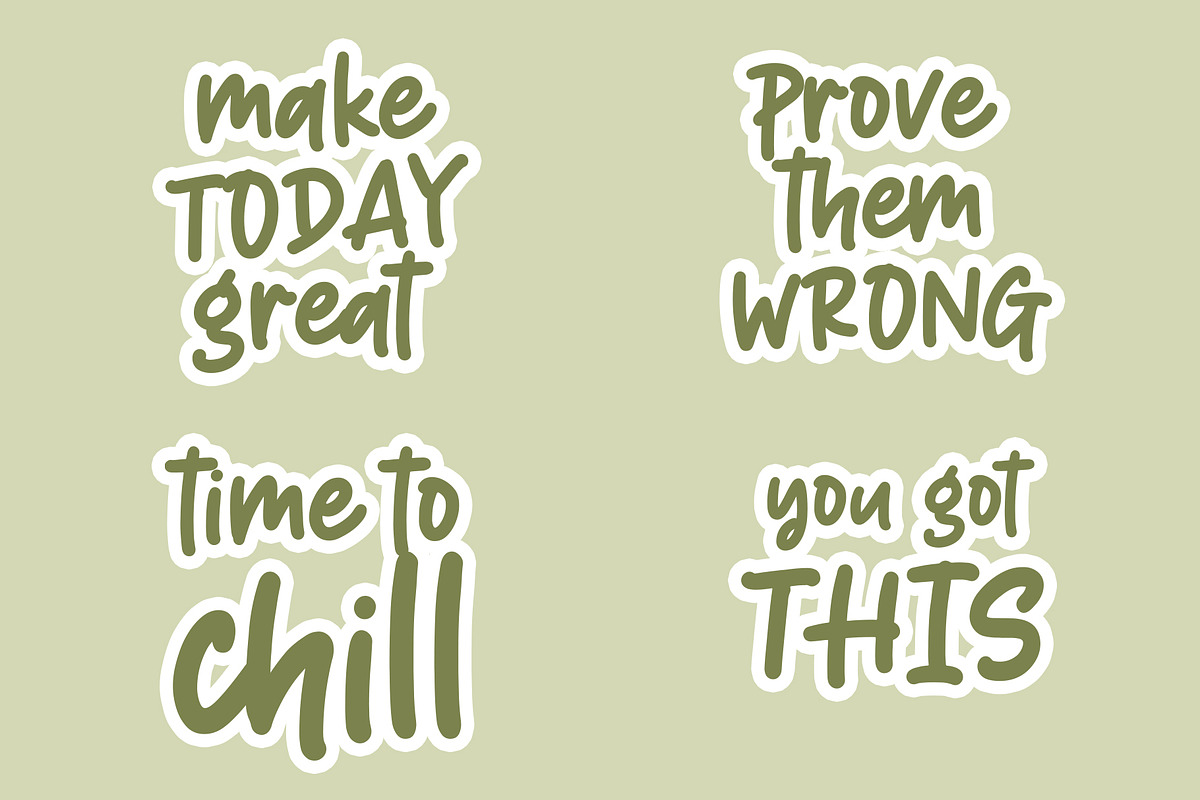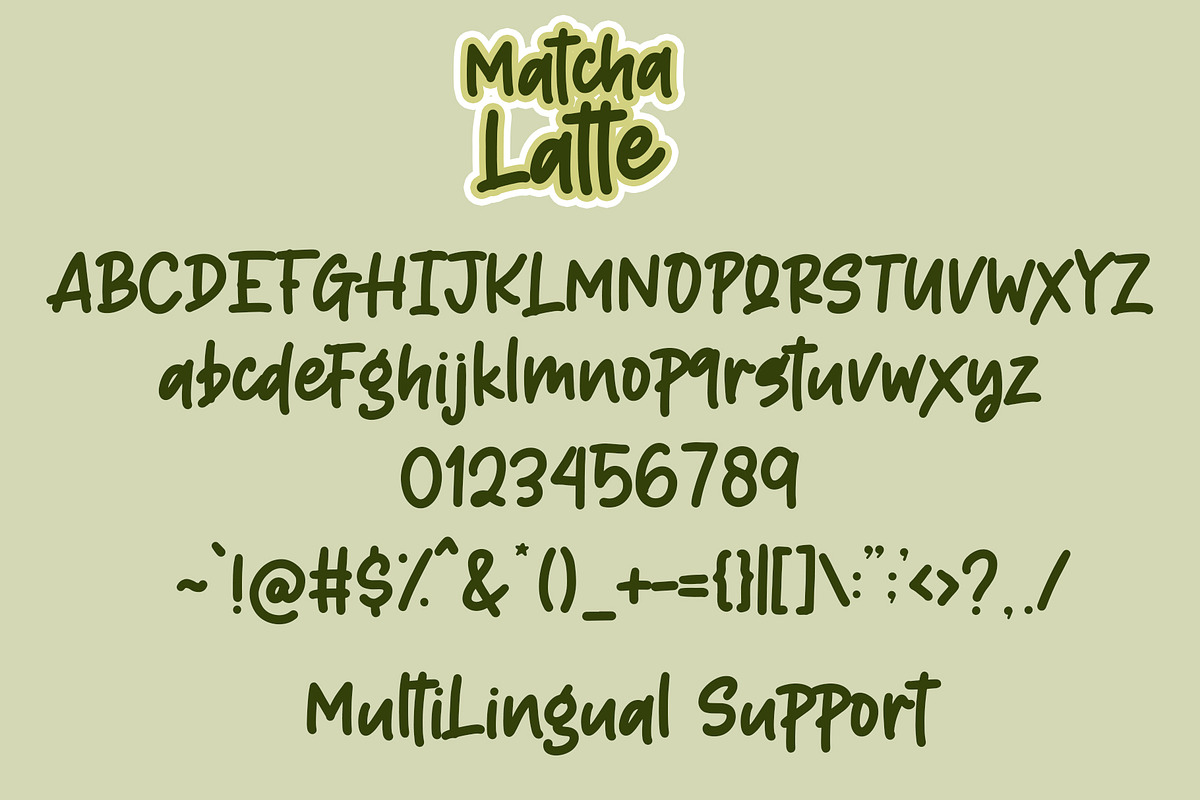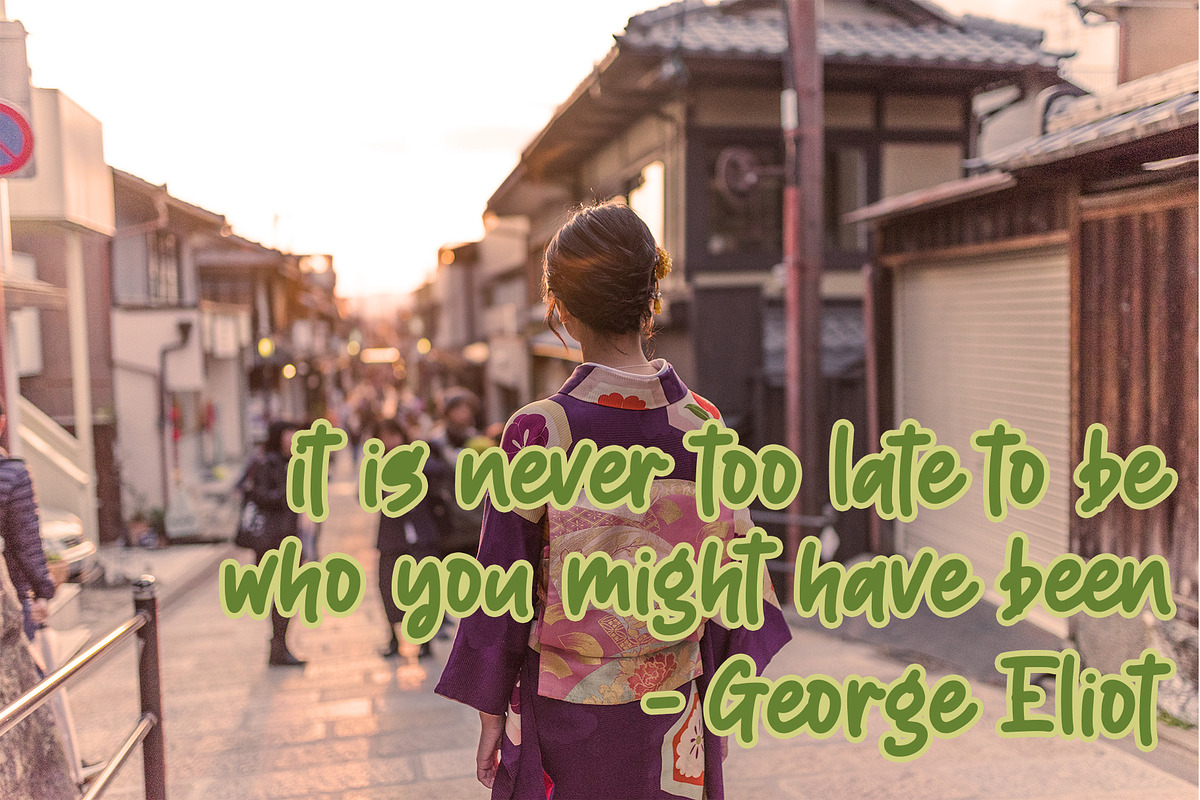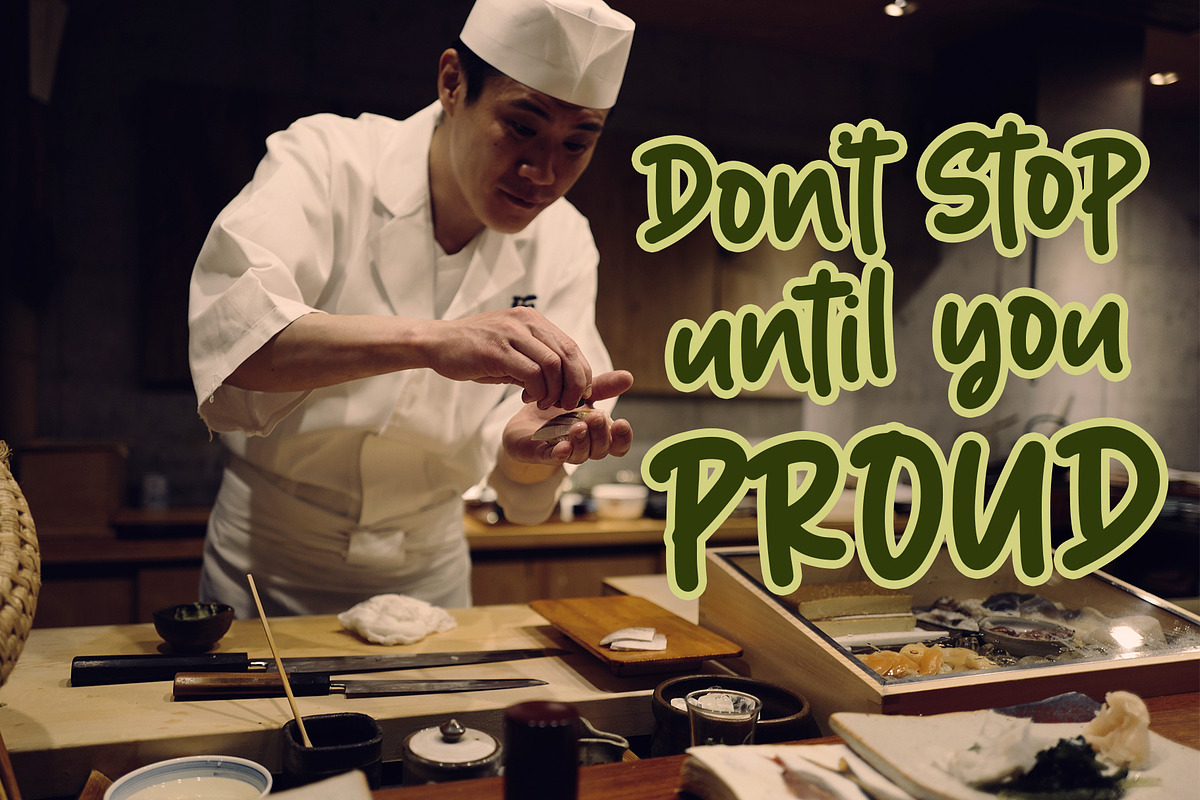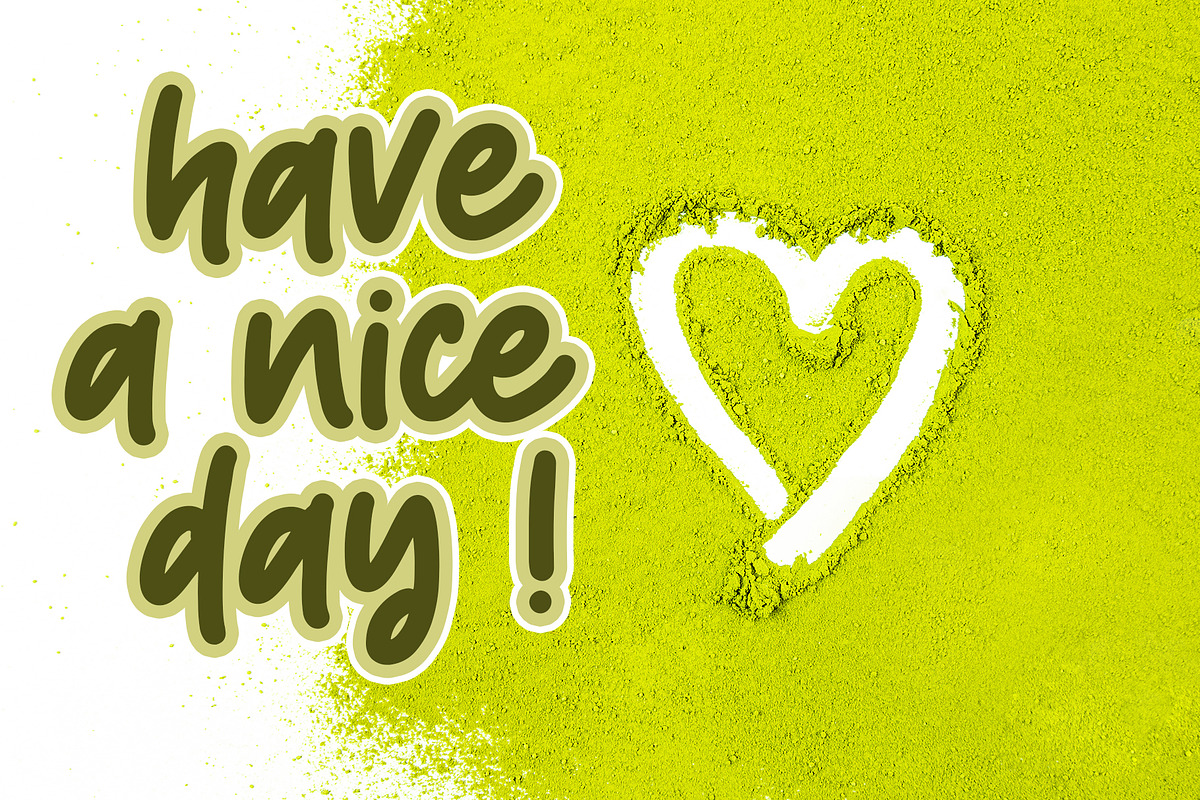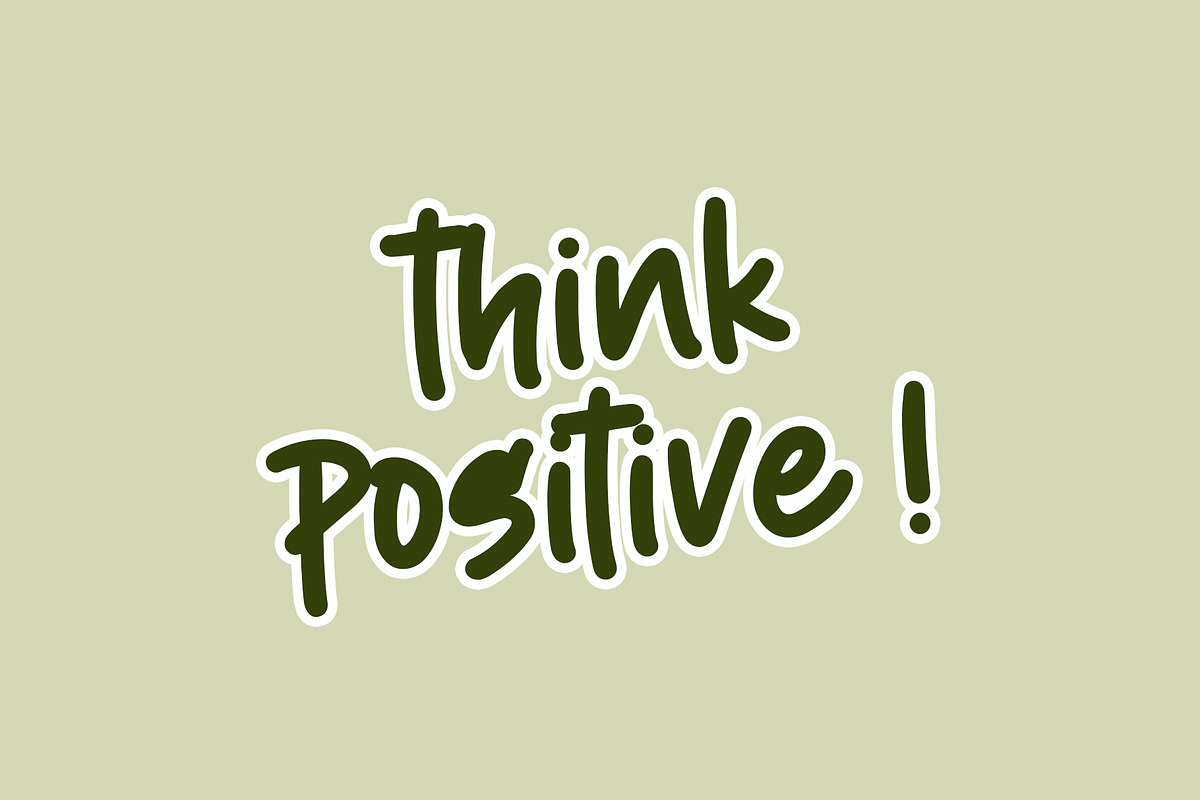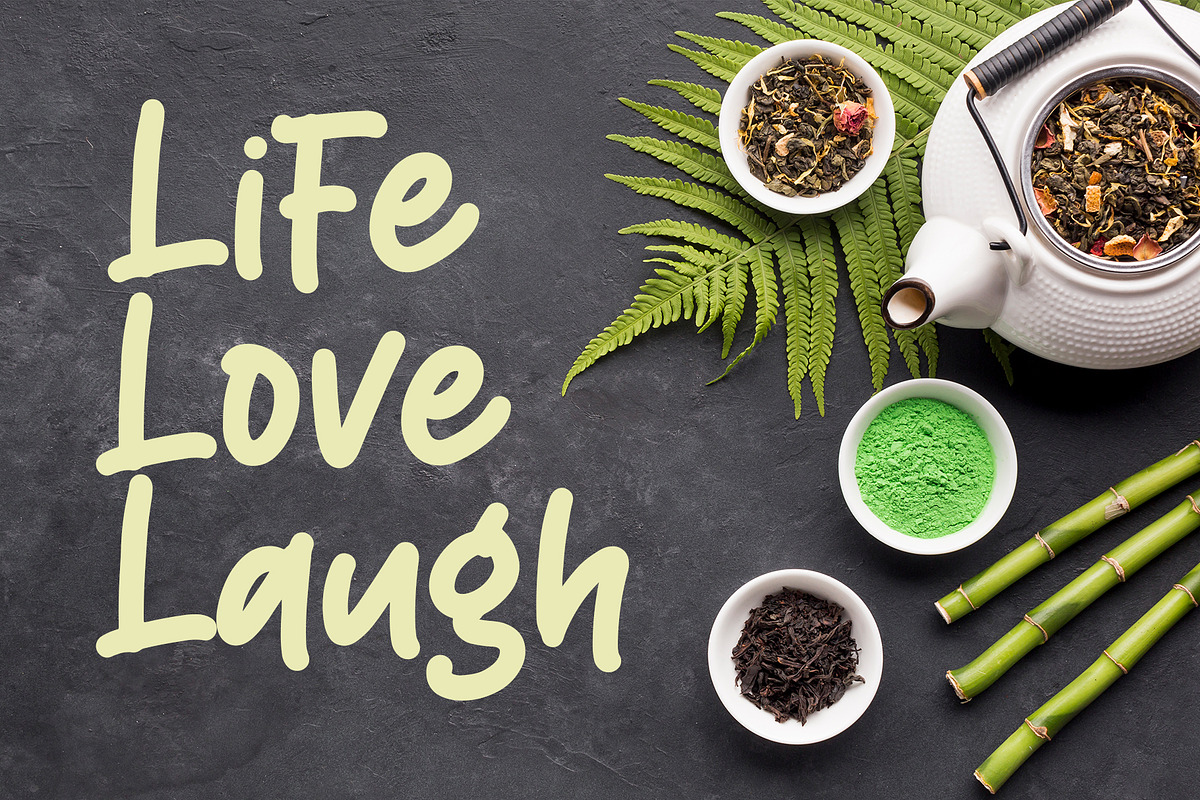
Matcha Latte - Handwritten Font
Matcha Latte Handwritten Font
Matcha Latte is a bold, casual yet expressive handwritten font. Versatile for any usage, for sweet or manly style!
- lowercase
- numeric
- symbols
- multilingual